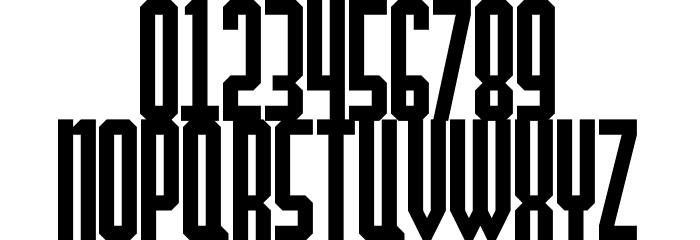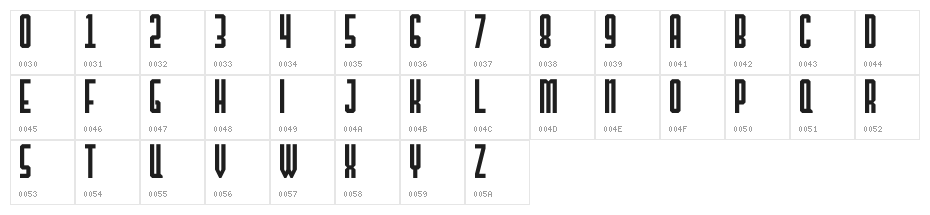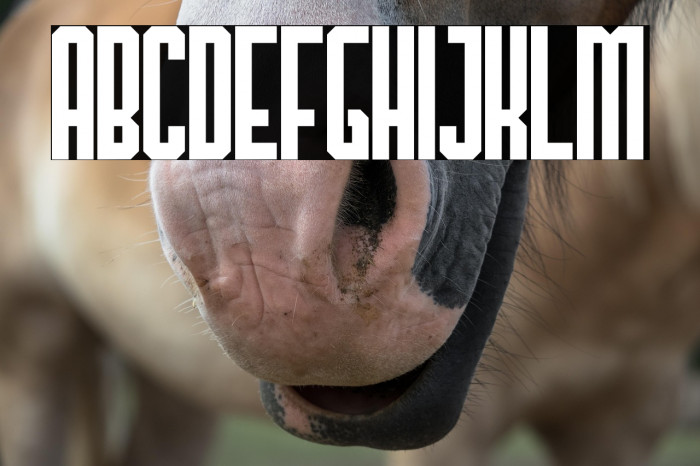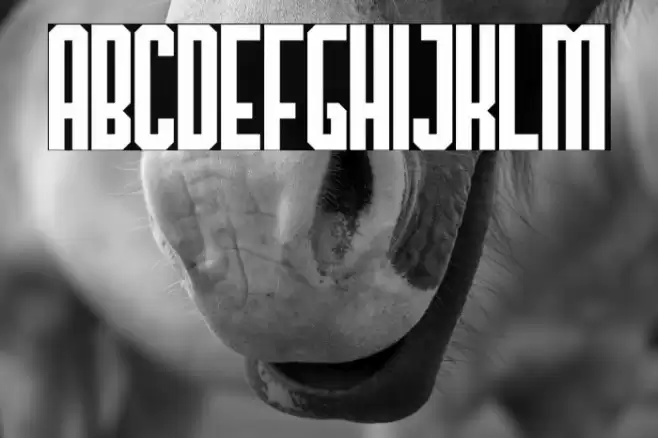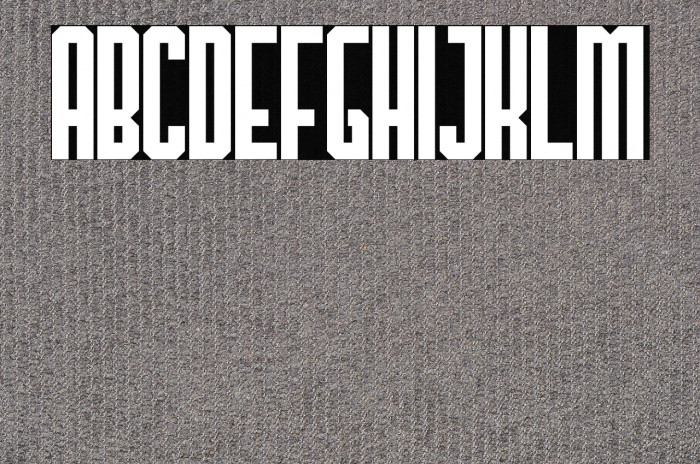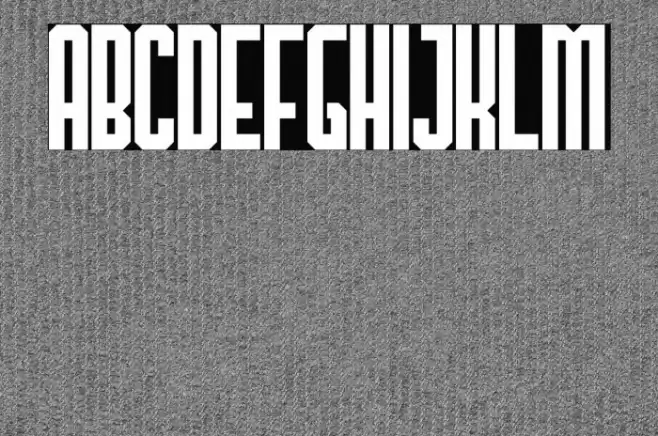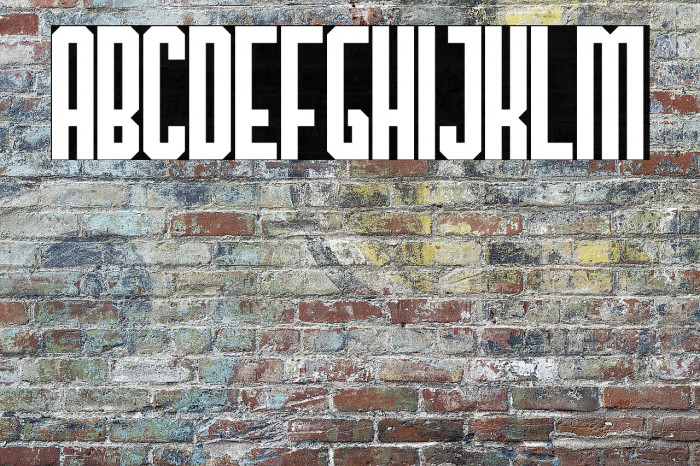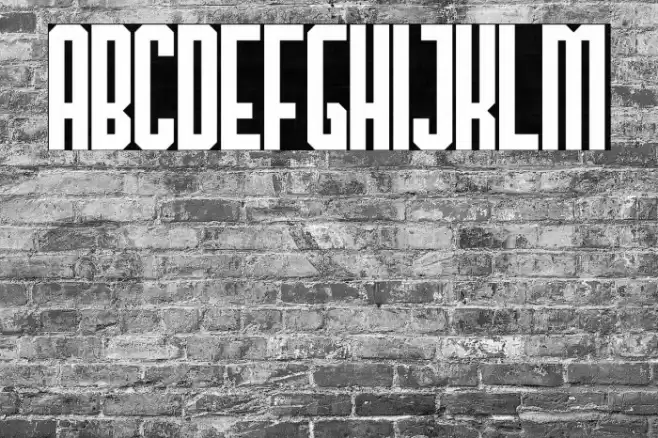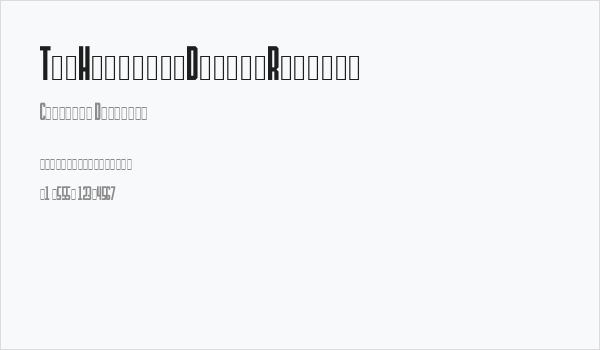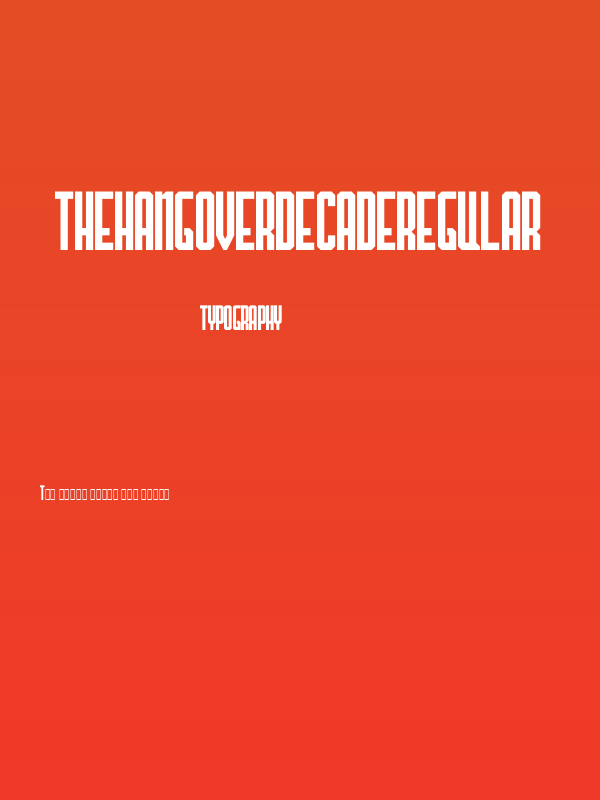
TheHangoverDecadeRegular Font
TheHangoverDecadeRegular Description
This font features a bold and condensed style with a strong vertical emphasis, creating a striking and impactful appearance. The characters are tightly spaced, enhancing the compact and dense look. The uppercase and lowercase letters maintain a consistent height, contributing to a uniform and cohesive design. The numbers and special characters follow the same stylistic approach, ensuring a seamless integration across different text elements. The font's geometric and angular shapes give it a modern and edgy feel, making it suitable for attention-grabbing headlines and titles.
| Proposed Projects | Ideal for posters, album covers, branding, and any project requiring a bold, modern aesthetic. |